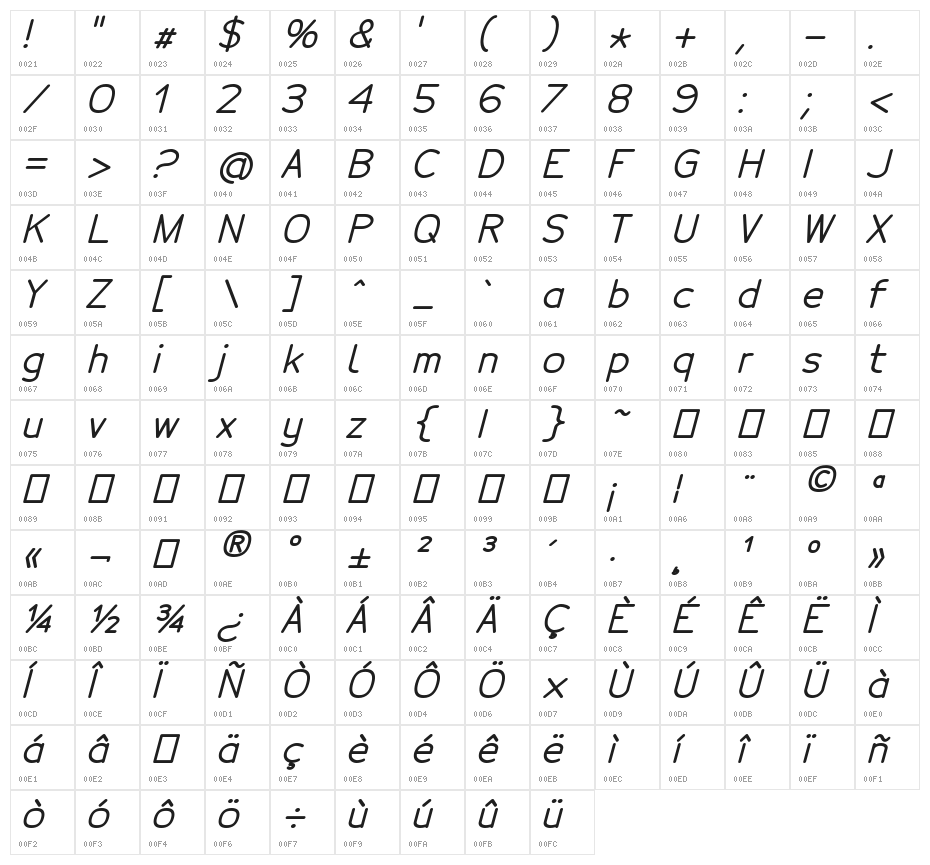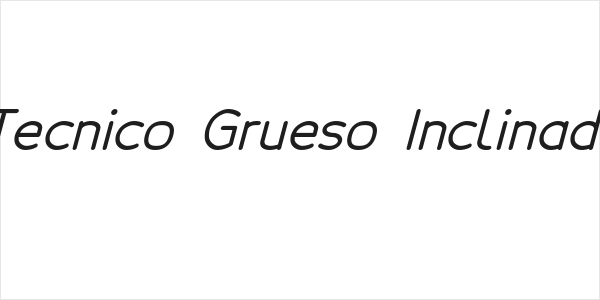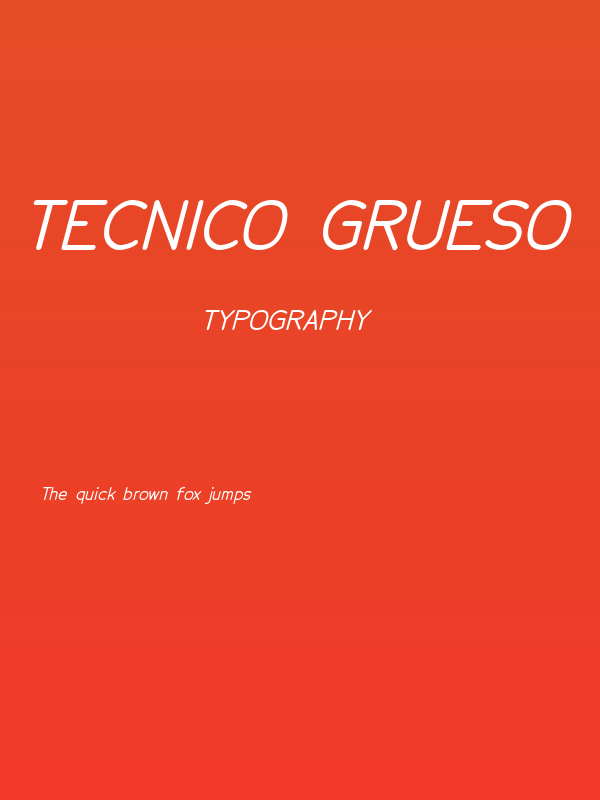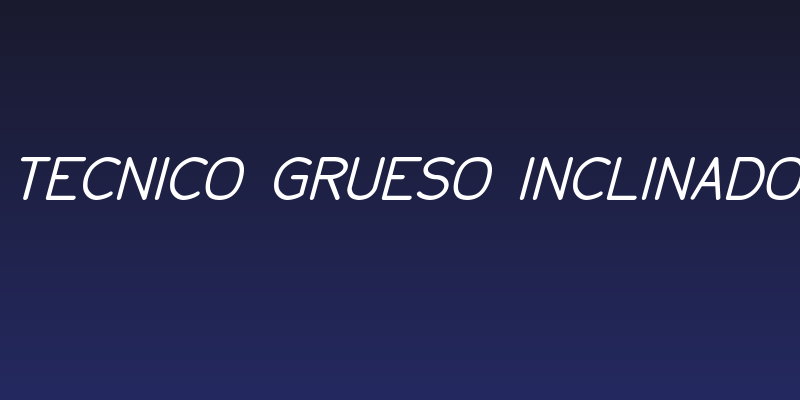
Tecnico Grueso Inclinado Font
Tecnico Grueso Inclinado Description
This font features a modern and sleek design with a slightly italicized style, giving it a dynamic and forward-moving appearance. The characters are bold and rounded, providing a sense of strength and stability. The uppercase letters maintain a consistent height, while the lowercase letters are slightly more compact, offering a balanced and harmonious look. The numerals are clear and easily distinguishable, making them suitable for various applications. The special characters are well-integrated, maintaining the overall aesthetic of the font. This typeface is versatile, suitable for both digital and print media.
| Proposed Projects | Ideal for branding, advertising, headlines, and digital interfaces where a modern and dynamic look is desired. |